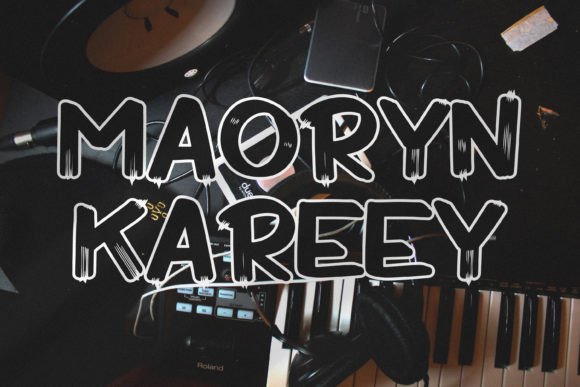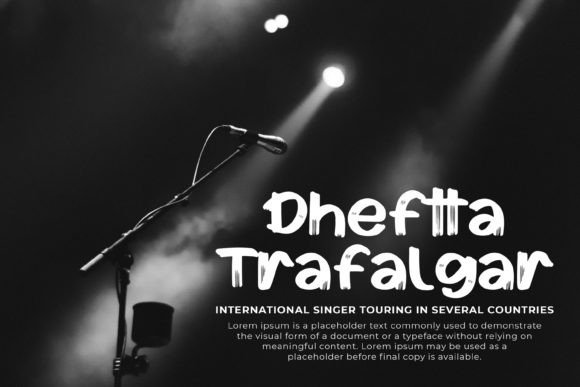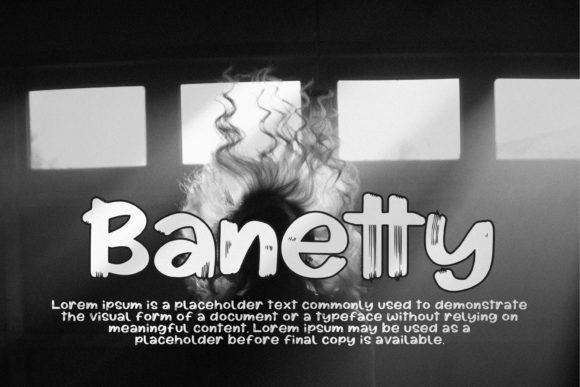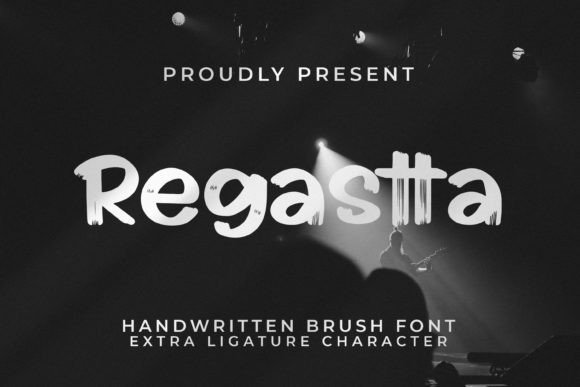
Introduction to Regastta Font
Regastta is a brush font, suitable for any project such as logos, branding projects, homeware designs, product packaging, mugs, quotes, posters, shopping bags, t-shirts, book covers, name cards and so much more.
Key Features of Regastta Font
Regastta Font offers exceptional quality and versatility, making it a valuable addition to your design toolkit. Whether you’re creating for personal projects or commercial use, Regastta Font delivers professional results.